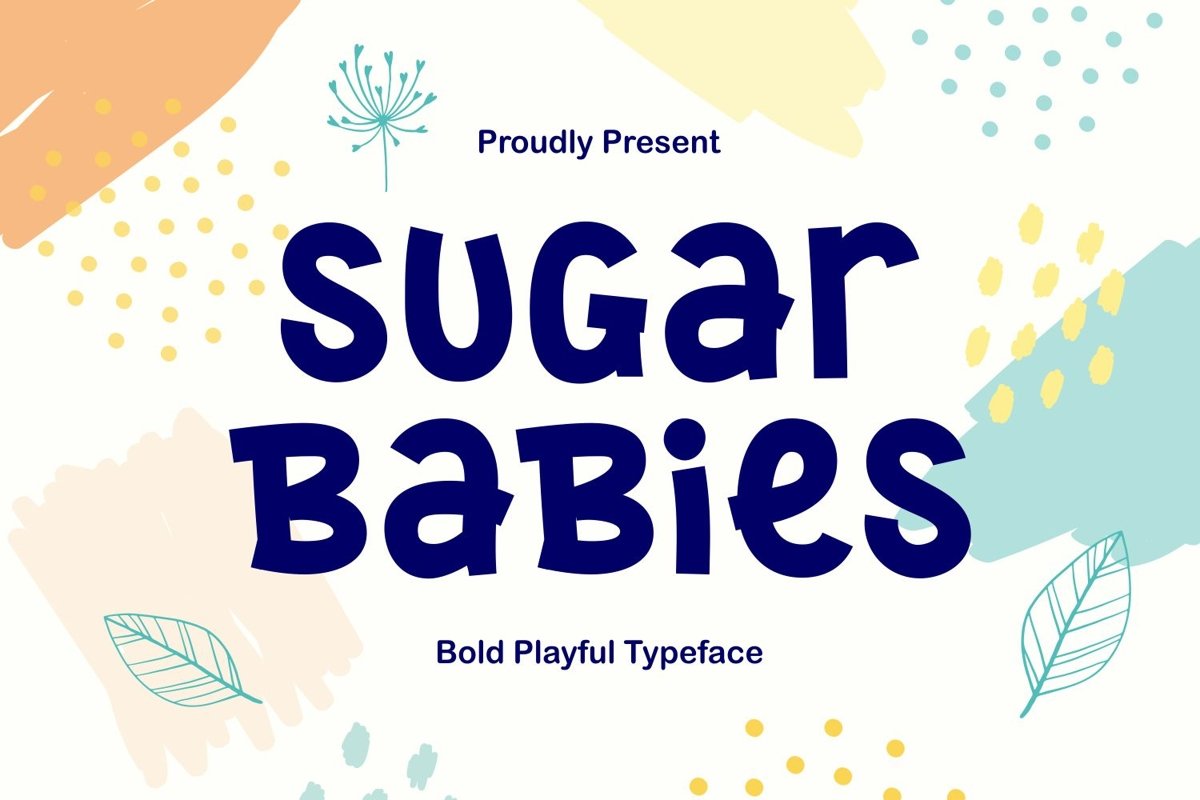
Sugar Babies is a bold sans serif display typeface with cute and playful themes. Natural shapes and funny look come with random uppercase lowercase. It matches applies in some designs such as the logotype, brand, packaging, quotes, kids poster, baby t-shirt, children book, birthday invitation and more custom design. The features uppercase, lowercase, numeral, punctuation & symbol, multilingual support, PUA encoded (fully accessible without additional design software).
Sugar Babies